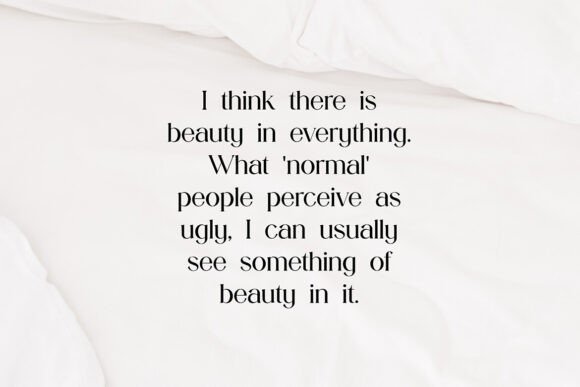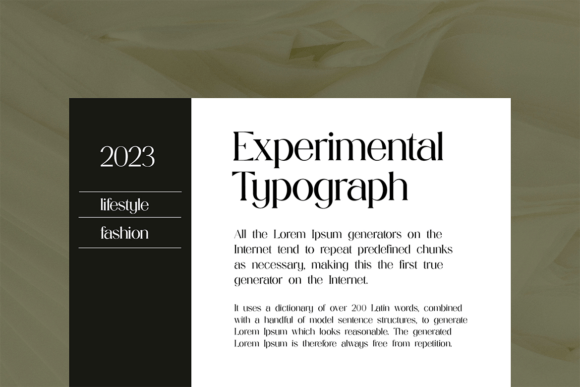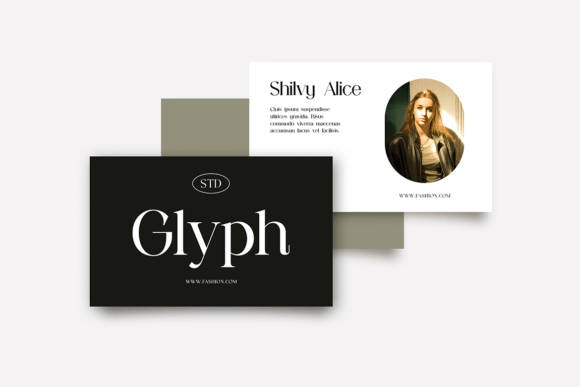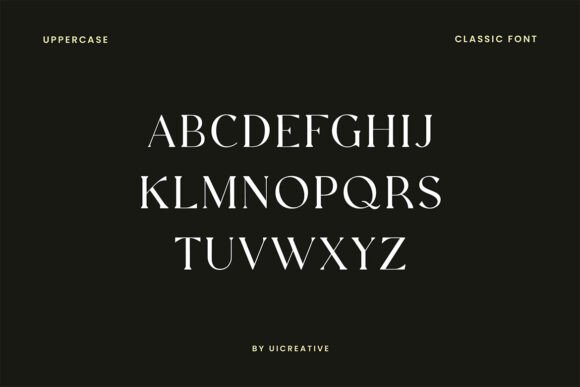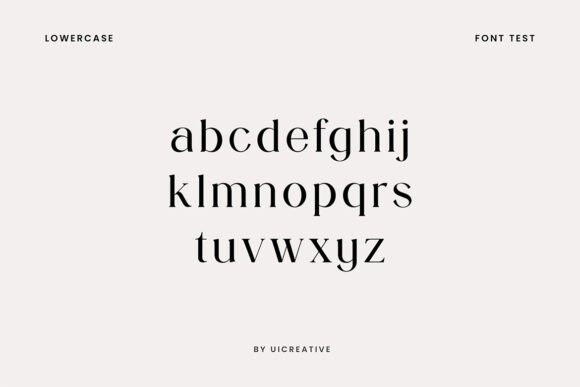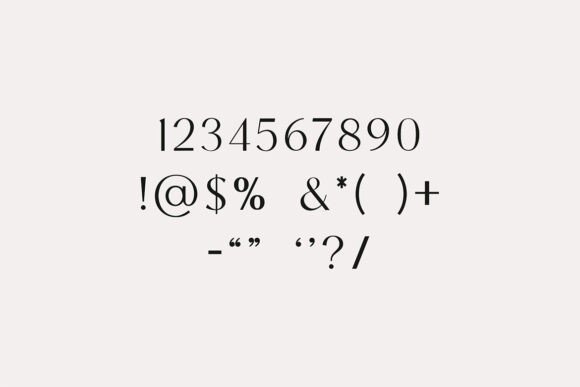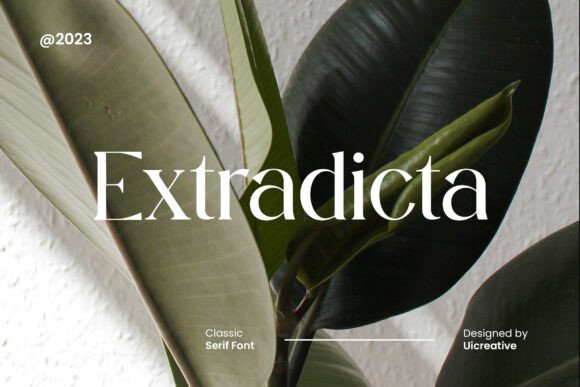
Introducing Extradicta Font: A Timeless Classic for Elegant Designs
In the world of typography, a well-crafted font can elevate a design from ordinary to extraordinary. For designers and crafters seeking a classic serif typeface that exudes elegance and sophistication, look no further than Extradicta Font. This versatile font is ideally suited for a wide range of projects, from signature and stationery to logo design, wedding typography, and more.
The Characteristics of Extradicta Font
Extradicta Font is a classic serif typeface that boasts a unique blend of traditional and modern elements. Its serif design features subtle flourishes and elegant lines, making it perfect for creating sophisticated and refined designs. The font’s classic feel ensures that it remains timeless, avoiding the pitfalls of trendy fonts that may quickly become outdated.
One of the standout features of Extradicta Font is its incredible versatility. This font can be used for a wide variety of projects, including:
- Signature and stationery design
- Logo design and branding
- Wedding typography and invitations
- Magazine and book covers
- Website headers and UI design
- Fashion-related branding and editorial design
Whether you’re working on a personal project or a client’s brief, Extradicta Font provides the perfect foundation for creating stunning designs.
Masculine and Feminine Qualities
What sets Extradicta Font apart from other serif typefaces is its unique ability to convey both masculine and feminine qualities. This makes it an excellent choice for fashion-related branding and editorial design, where the font needs to appeal to a wide range of audiences. The font’s elegant lines and subtle flourishes create a sense of sophistication and refinement, while its classic feel ensures that it remains approachable and accessible.
Why Choose Extradicta Font?
With so many fonts available, why choose Extradicta Font for your next project? Here are just a few compelling reasons:
- Timeless design: Extradicta Font’s classic serif design ensures that it will remain stylish and relevant for years to come.
- Versatility: This font can be used for a wide range of projects, from print to digital.
- Elegance and sophistication: Extradicta Font exudes refinement and poise, making it perfect for high-end branding and design.
- Masculine and feminine qualities: This font’s unique blend of qualities makes it suitable for a wide range of audiences and design applications.
Tips for Using Extradicta Font
To get the most out of Extradicta Font, here are a few tips to keep in mind:
- Experiment with font sizes: Extradicta Font looks stunning in a range of font sizes, from large headings to smaller body text.
- Play with color: The font’s classic design makes it suitable for a wide range of color schemes and palettes.
- Pair with other fonts: Extradicta Font pairs beautifully with other serif and sans-serif fonts, making it easy to create stunning typography combinations.
Extradicta Font is a timeless classic that offers a unique blend of elegance, sophistication, and versatility. Whether you’re a designer, crafter, or simply someone who appreciates beautiful typography, this font is sure to impress. With its classic serif design, masculine and feminine qualities, and incredible versatility, Extradicta Font is the perfect choice for a wide range of projects. So why wait? Discover the power of Extradicta Font for yourself and elevate your designs to new heights.